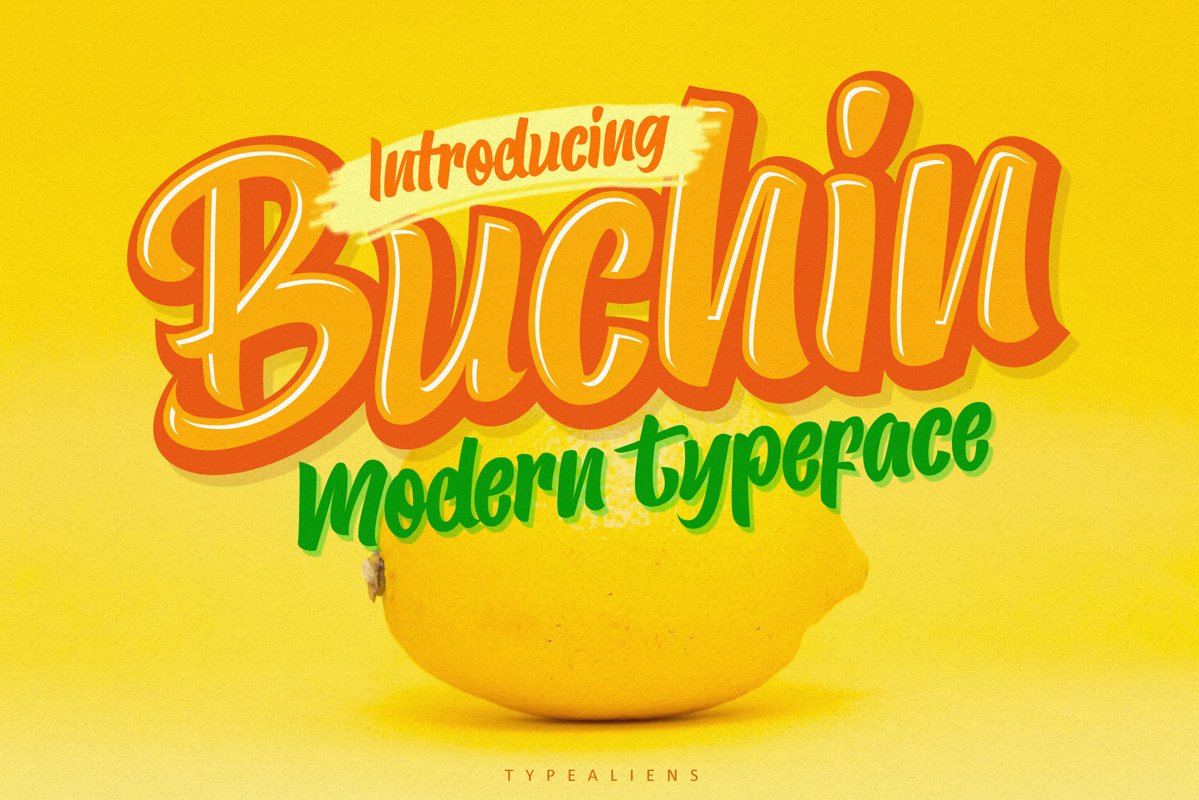
Buchin
BUCHIN is a font with bold and modern nuances so that it feels free and fun. It will be very suitable for branding purposes such as logotype, packaging design, posters, product advertisements.
This font has a cheerful, funny but still strong impression because of its bold style. For an advertisement, packaging, or brochure will be very suitable if this font becomes the headline.